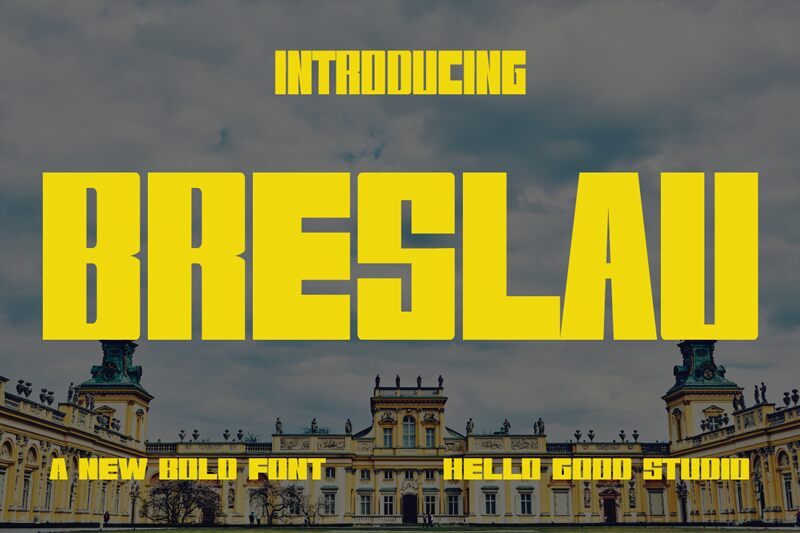
معاينة خط Breslau
Breslau font, a Studio Hello Good creation, is a techno display font in bold style with industrial and geometric features. Combining futuristic and modern influences, the typography has sleek characteristics that are ideal for creative projects of all kinds. You can employ it as a professional or nonprofessional designer to create outstanding prints.
The free font would serve well in posters, games interfaces, social media posts, branding designs, website headers, board games packaging designs, book covers and titles, invitations cards designs – wedding or marketing event –, magazine covers or headings.